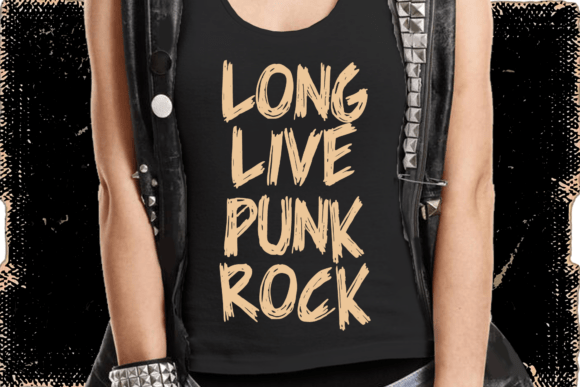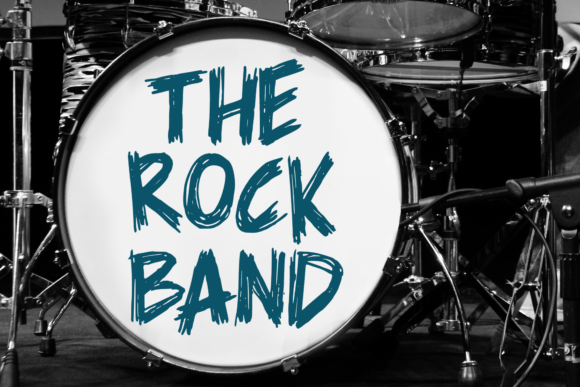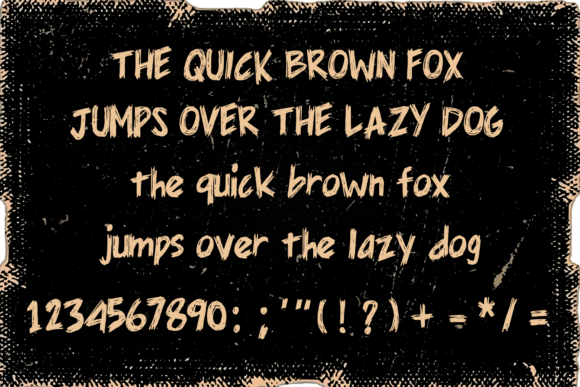
Introduction to Rock Scrawl Font
Have you ever stared at a blank canvas, waiting for inspiration to strike? That’s where the magic happens, and for many designers, it’s the moment when creativity knows no bounds. For me, it was when I stumbled upon the Rock Scrawl Font – a grunge and rock band display font that screams attention and leaves a lasting impression. I couldn’t wait to dive in and see what kind of amazing designs I could create with it.
The Rock Scrawl Font is a valuable resource for designers looking to add a touch of edginess to their projects. With its high-quality design and transparent background, it’s perfect for creating eye-catching posters, stickers, and merchandise. Whether you’re working on a music project, a movie poster, or a t-shirt design, this font is sure to elevate your creative project to the next level.
Key Features of Rock Scrawl Font
- Unique, hand-drawn style suitable for creative projects and artistic designs.
- High-quality font with a transparent background, ideal for use in digital art and graphic design.
- Includes a range of characters and glyphs, making it suitable for a variety of creative projects.
Honest Review: Rock Scrawl Font
As a designer, I’ve had the chance to play around with the Rock Scrawl Font, and I have to say, it’s a unique addition to any creative project. One of the things that stands out about this font is its high quality and unique character set. It’s perfect for adding a touch of personality to your designs. ✨
Here are some of the things I like about the Rock Scrawl Font:
- Unique and high-quality character set
- Perfect for creative projects that need a personal touch
- Not suitable for formal or professional projects
- May not be as versatile as some other fonts
- Can be a bit difficult to read at small font sizes
Overall, I think the Rock Scrawl Font is a great addition to any designer’s toolkit. While it may not be perfect for every project, it’s a fun and unique font that can add some personality to your designs.
How to Use Rock Scrawl Font
The Rock Scrawl Font is a unique and creative design resource that can add a personal touch to your projects. With its high-quality, hand-drawn style, it’s perfect for adding a touch of whimsy to your designs.
Getting the Most Out of Rock Scrawl Font
To get the most out of the Rock Scrawl Font, try using it with a transparent background to create a seamless look. You can also experiment with different font sizes and styles to add visual interest to your designs.
The Rock Scrawl Font is perfect for a variety of creative projects, including:
- Documents
- Website design
Alternatives to Rock Scrawl Font